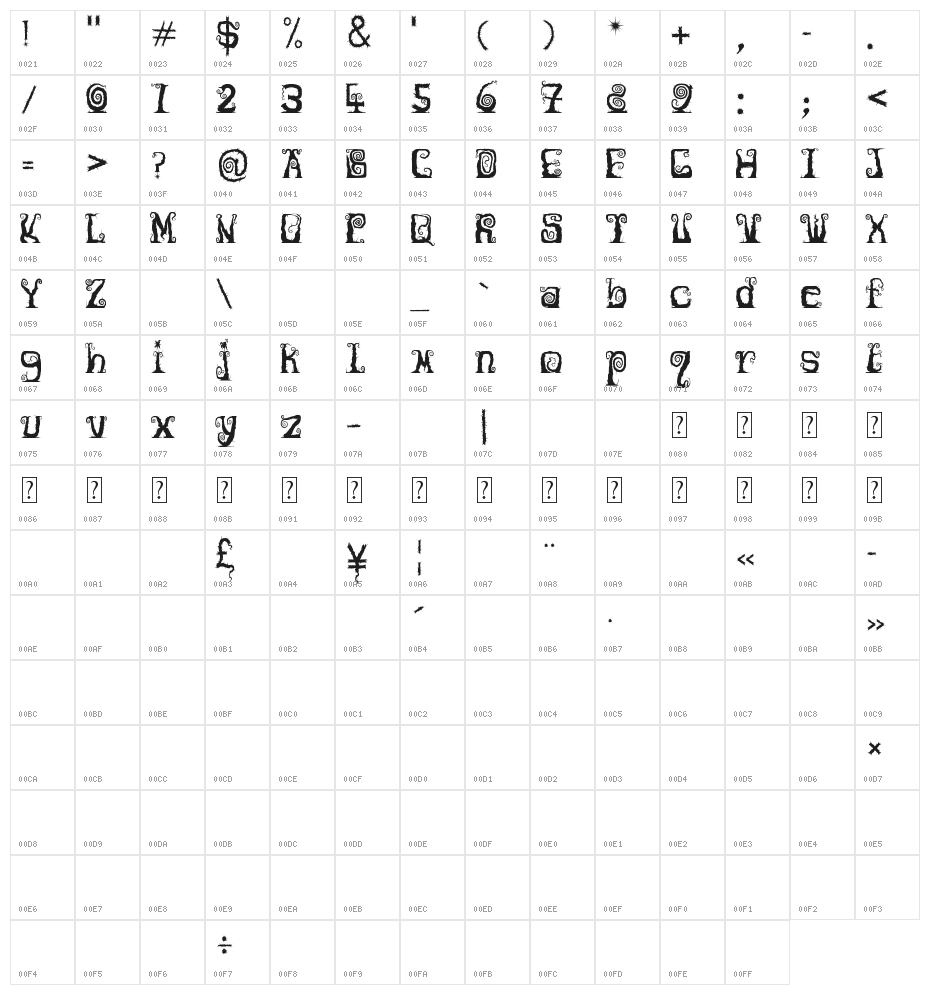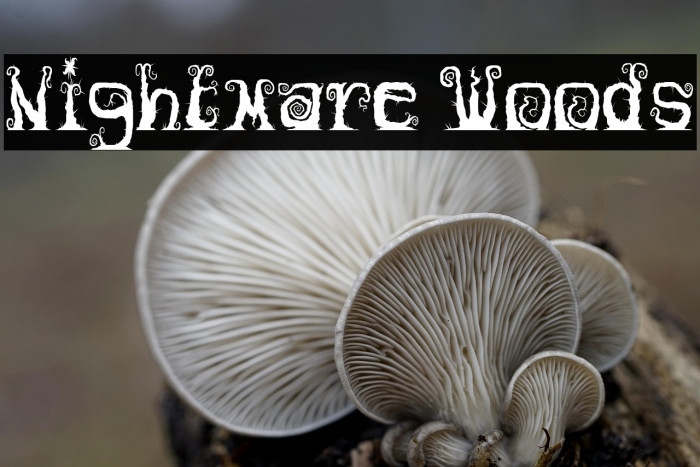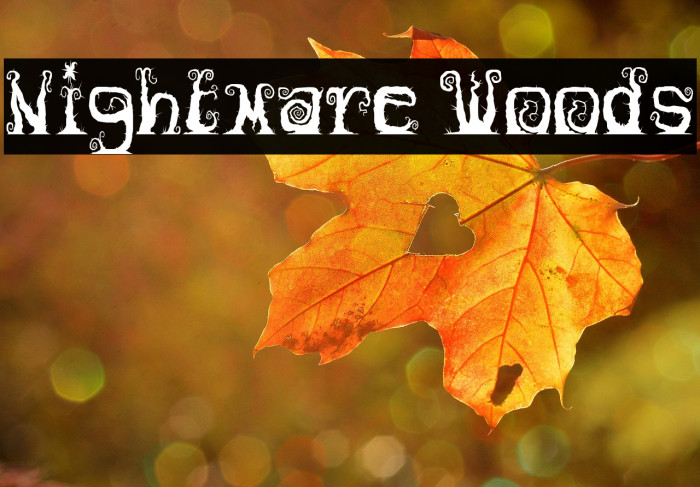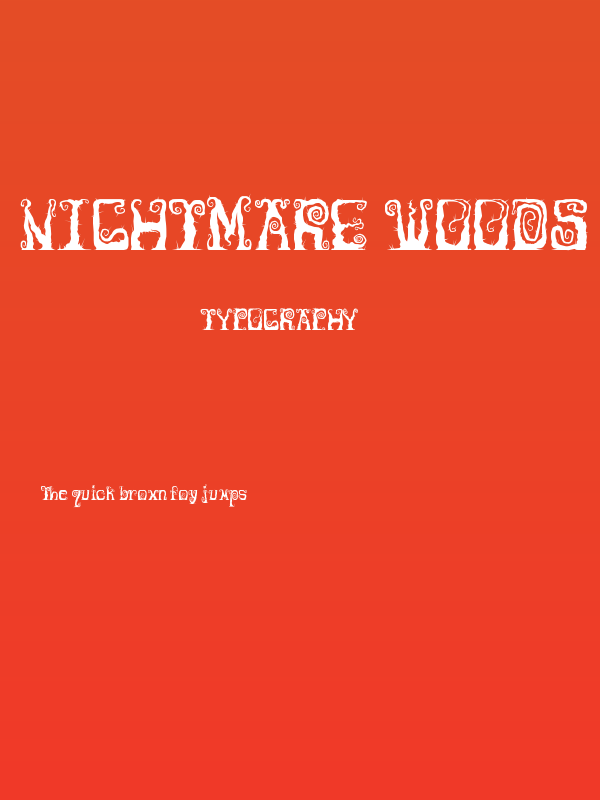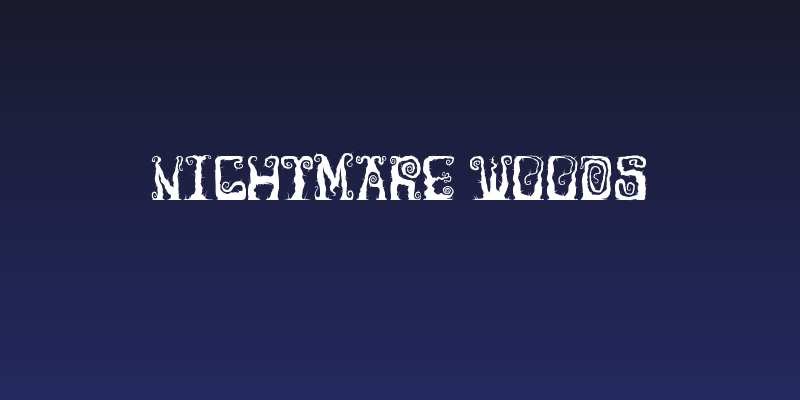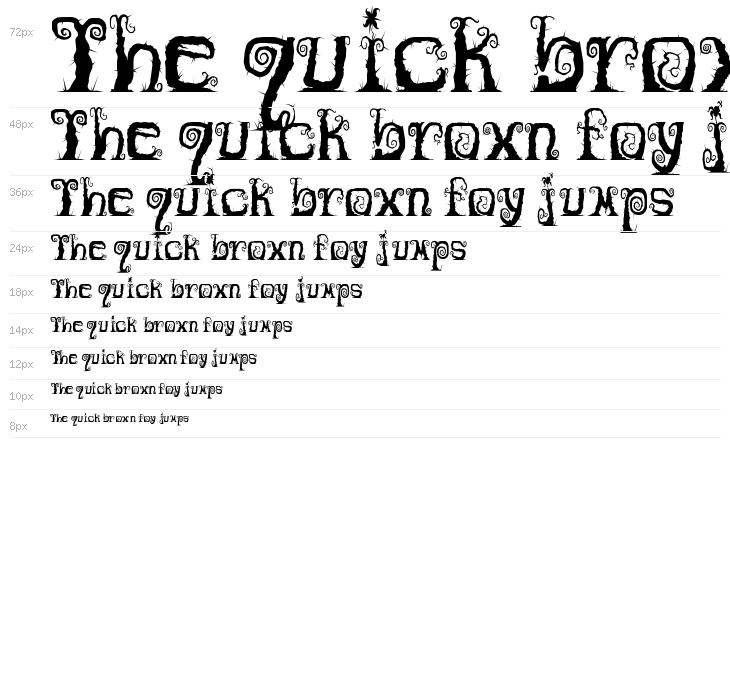
Nightmare Woods Font
Nightmare Woods Description
This font exudes a whimsical yet eerie charm, with each character adorned with intricate, thorn-like embellishments that evoke a sense of mystery and fantasy. The uppercase and lowercase letters are crafted with a playful yet dark aesthetic, featuring swirling vines and sharp edges that create a dynamic visual impact. Numbers and special characters maintain this theme, adding a consistent, cohesive look across the entire set. The font's unique style makes it ideal for projects that require a touch of the fantastical or the macabre, such as Halloween-themed designs or fantasy book covers.
| Proposed Projects | Ideal for Halloween designs, fantasy book covers, and spooky event invitations. |